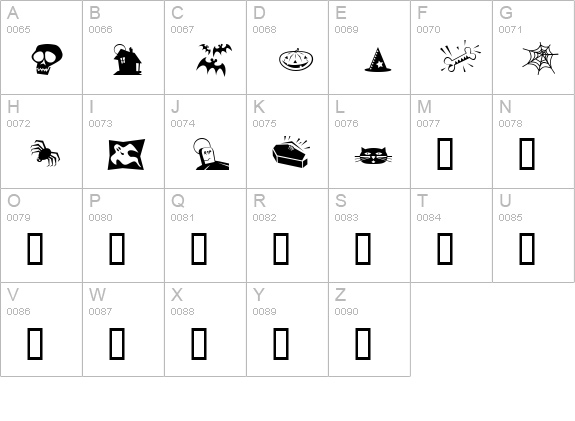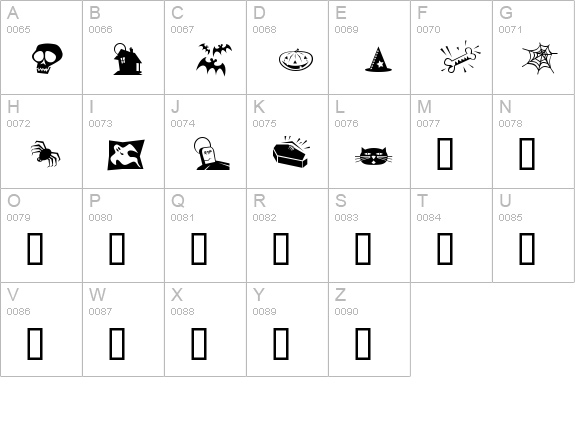
Halloweenies Font Details
Introducing Halloweenies font, the perfect typeface to add a spooky touch to your Halloween designs! This font embodies the essence of the holiday with its playful yet eerie letterforms, making it an ideal choice for party invitations, haunted house flyers, and eerie social media posts. With its intricate details and quirky style, Halloweenies will instantly transport your audience into a world of witches, ghosts, and ghouls. Each letter is carefully crafted to evoke a sense of mystery and excitement, capturing the spirit of Halloween in every curve and line. The best part? Halloweenies font is absolutely free! Available for download exclusively at FontsMarket.com, this font allows you to unleash your creativity without breaking the bank. Whether you're a professional graphic designer or simply a Halloween enthusiast, this font is a must-have in your collection. Don't miss out on the opportunity to bring your Halloween-themed projects to life with Halloweenies font. Its versatility and uniqueness will set your designs apart from the rest, guaranteeing a spine-chilling experience for all who encounter them. So why wait? Download Halloweenies font today and let the magic of Halloween come alive in your designs. Transform ordinary words into captivating visuals and make a lasting impression this Halloween season. Get ready to leave your audience spellbound with the captivating power of Halloweenies font, freely available at FontsMarket.com.